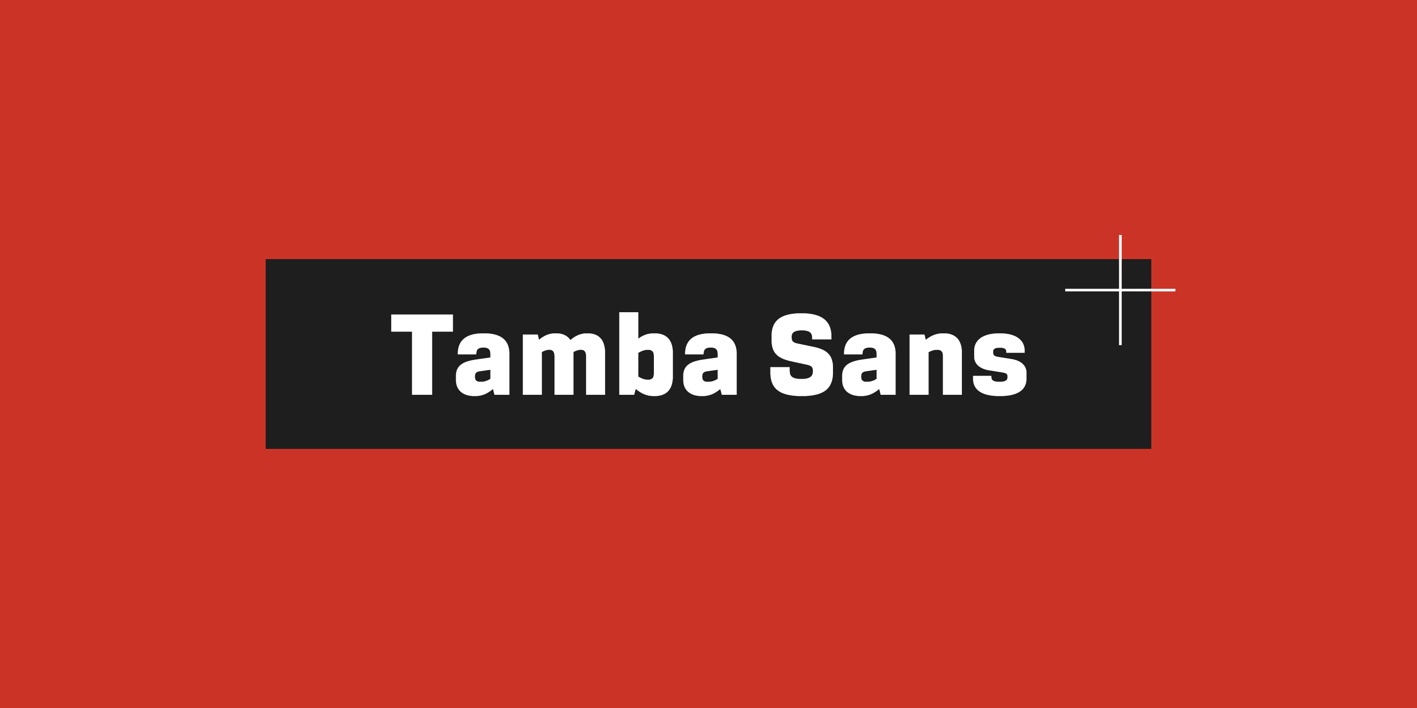
Tamba Sans Complete Family
Tamba Sans Complete Family Font is perfect for comprehensive corporate branding, multi-platform design systems, extensive publication projects, professional document suites, versatile marketing campaigns, and complete brand identity designs where typographic consistency meets systematic excellence.
What makes Tamba Sans Complete Family Font exciting is its comprehensive sans-serif system with complete weight variations that captures the essence of professional versatility and systematic design, making it ideal for brands seeking to convey reliability, flexibility, and comprehensive visual excellence.
Tamba Sans Complete Family includes systematic variations: Thin, Light, Regular, Medium, Semibold, Bold, Black, and corresponding Italics, providing designers with complete typographic solutions for enterprise and systematic design projects.
This versatile typeface builds complete systems with its comprehensive letterforms and systematic character that speaks to the importance of consistent visual communication and professional brand coherence. Tamba Sans Complete Family Font Free Download provides designers with typography that embodies the essence of systematic design and professional completeness. The font's distinctive comprehensive aesthetic makes it perfect for large corporations, publishing houses, and comprehensive brand agencies. Its systematic design works excellently for both traditional applications like corporate style guides and contemporary uses such as multi-platform digital ecosystems and comprehensive brand implementations. The carefully engineered weight variations ensure maximum flexibility while maintaining the consistent, professional atmosphere that defines quality systematic branding. Whether you're creating enterprise brand identities, comprehensive publication systems, or multi-platform marketing campaigns, this font delivers the authentic systematic excellence and professional versatility that resonates with brand managers and design professionals who understand the critical importance of typographic consistency across all touchpoints and celebrate the power of complete font families to create cohesive brand experiences.